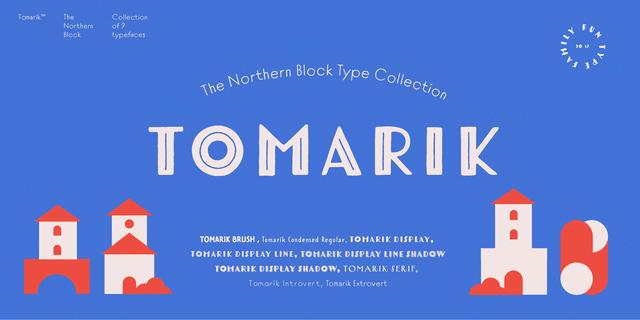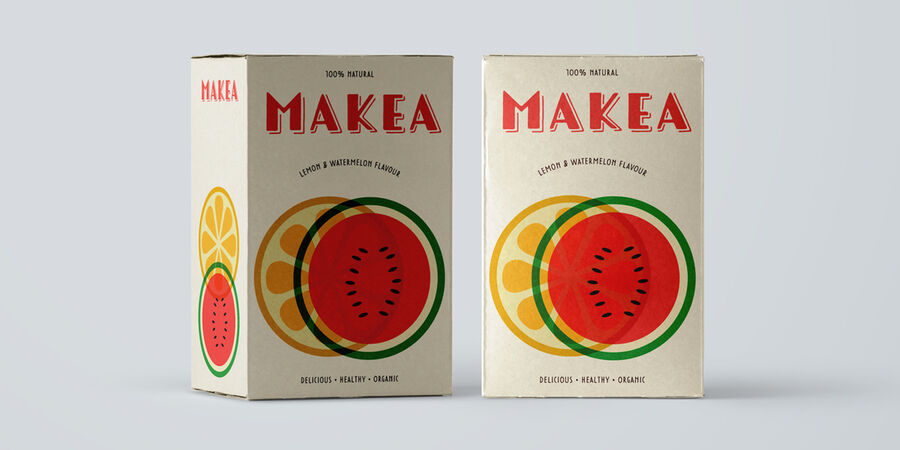
About Tomarik DisplayThis hand-drawn Art Deco contrast sans serif is a part of Tomarik vibrant handwritten font collection. The playful addition to any creative depository. Assembled with the ""pick-and-mix"" idea in mind, it offers a great variety of flavor and zest.
Tomarik features nine distinctive weights with Latin and Cyrillic and includes OpenType features such as fractions, inferiors and superiors. Designed by Mariya Pigoulevskaya in 2017. Tomarik™ is a trademark of The Northern Block.
Features of font family Tomarik DisplayThe hit of the decade:
Associations for font family Tomarik DisplayTypeface personality and character: